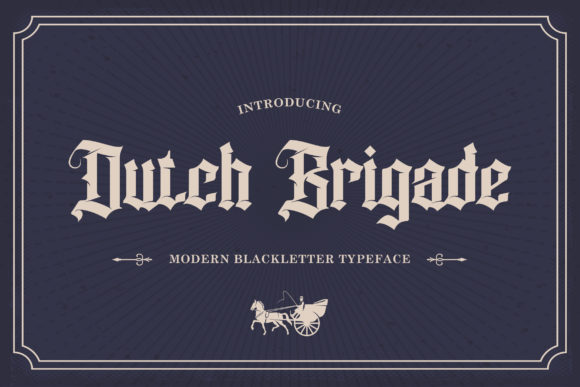
Unleash the Power of Dutch Brigade: A Blackletter Font That Wows
Immerse yourself in the world of Dutch Brigade, a blackletter font that captivates with its bold strokes and striking charisma. Crafted by the esteemed TypeFactory, this font is a masterpiece of design, blending history with modernity.
Step into a realm of endless possibilities with Dutch Brigade. Whether you seek to create captivating product logos that leave a lasting impression, design posters that command attention, or add a touch of sophistication to your barber shop's branding, this font is your ultimate companion.
Express your individuality with Dutch Brigade's versatility. From powerful headlines that demand attention to packaging that exudes elegance, this font adapts seamlessly to any creative vision. Elevate your wedding invitations with a touch of timeless charm or design badges that radiate character.
Dutch Brigade is not just a font; it's an experience. Its striking visuals transport you back in time, evoking a sense of nostalgia and intrigue. Create designs that resonate with your audience, leaving them captivated by your artistry.
Embrace the allure of Dutch Brigade and embark on a creative journey like no other. Let your imagination soar as you explore the infinite possibilities this font offers. Its beauty will leave you spellbound, inspiring you to create designs that stand the test of time.